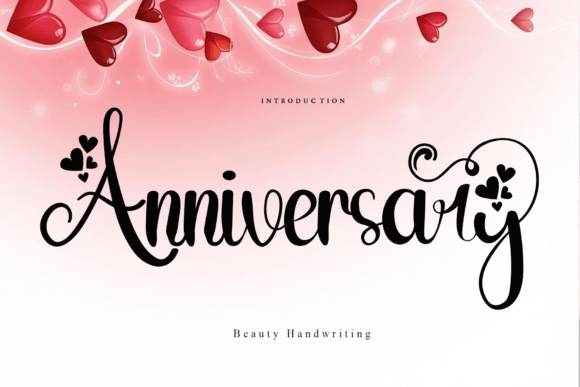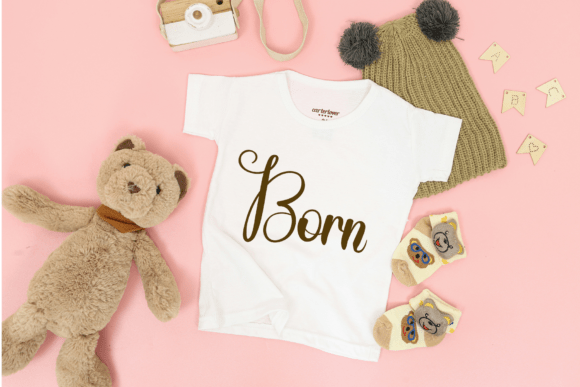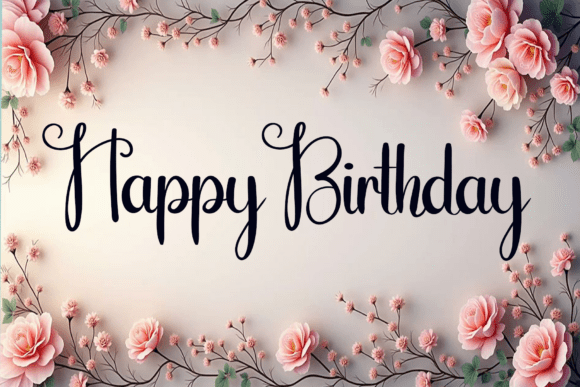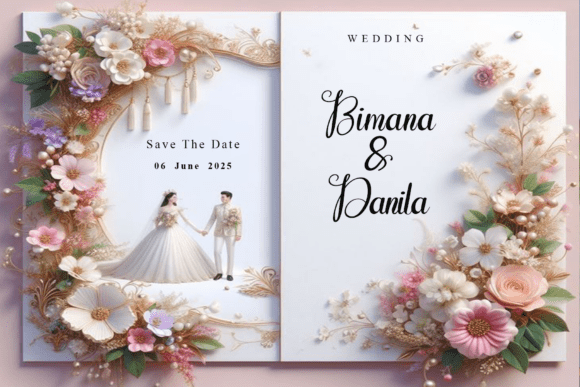
Anniversary Font: Elegant Handwritten Script for Wedding Invitations
About the Anniversary Font
Discover the charm of Anniversary Font. This font is a perfect blend of modern aesthetics and classic appeal. Anniversary is a beautiful handwritten font with a natural, flowing style. It looks like elegant cursive writing, perfect for adding a personal and stylish touch to invitations, logos, and social media posts.
Anniversary Font Usage Examples
Anniversary Font Example